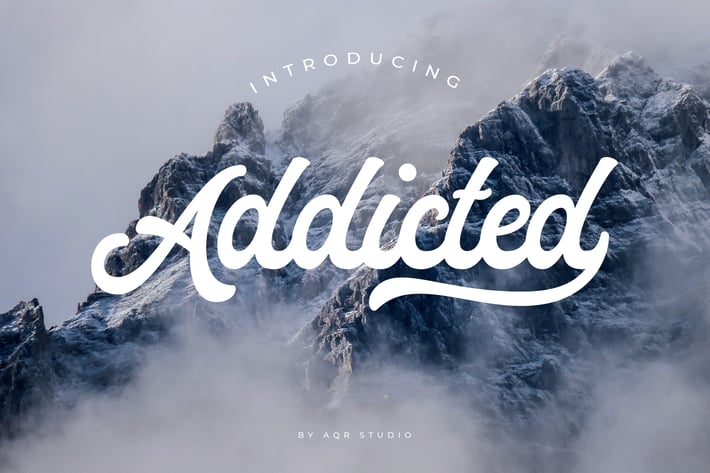
Addicted Font
Addicted Font that contain lowercase, uppercase, symbol, and also support multi language. There’s a lot ligatures in this font. Addicted Font also comes with ligatures, stylistic alternates and many more. this font suitable for fashion, branding, catalog and other design what you want.